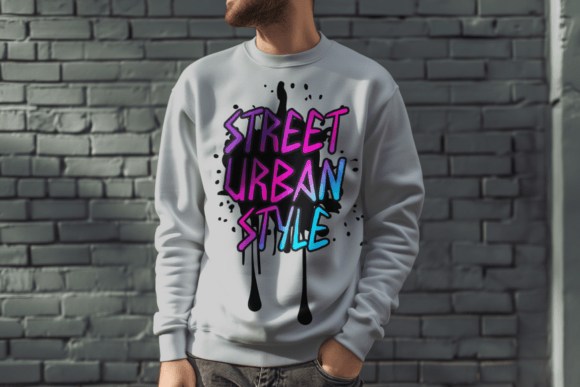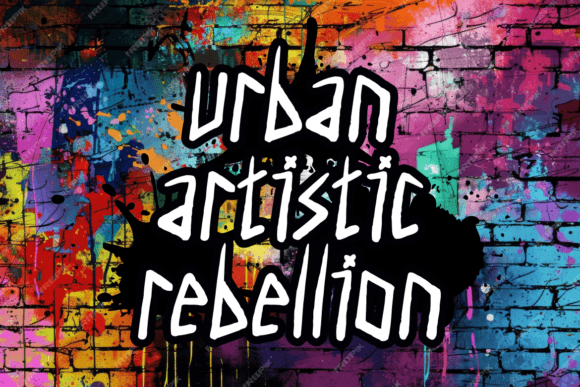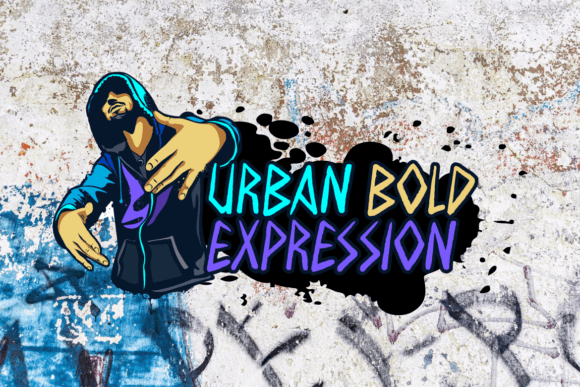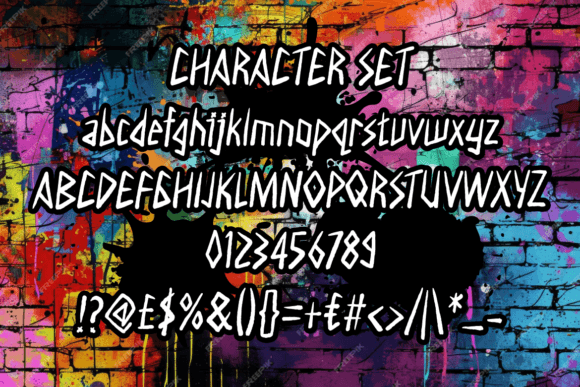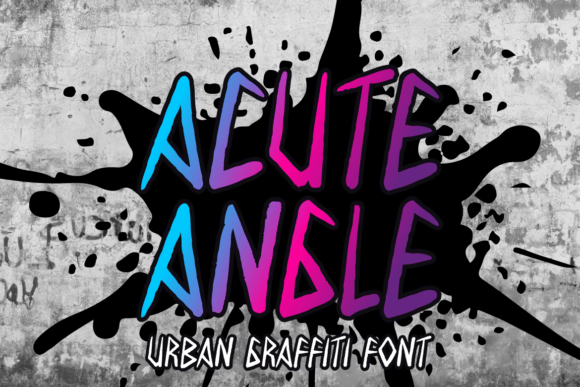
Introducing AcuteAngle: The Ultimate Urban Graffiti Font
Are you tired of using the same old fonts in your digital designs? Do you want to add a touch of rebellious flair to your projects? Look no further than AcuteAngle, the ultimate urban graffiti font. This bold typeface is perfect for designers and crafters who want to bring the raw energy of street art to their work.
The Inspiration Behind AcuteAngle
AcuteAngle is inspired by the vibrant and dynamic world of urban graffiti. The font features dynamic, hand-drawn letters with irregular edges and varying thicknesses, mimicking the spontaneous strokes of a spray can or brush on a gritty urban canvas. The result is a font that captures the essence of graffiti culture, with all its energy and attitude.
Key Features of AcuteAngle
- Dynamic, hand-drawn letters: Each letter in AcuteAngle has been carefully crafted to capture the unique, irregular shapes and lines of graffiti art.
- Irregular edges and varying thicknesses: The font’s irregular edges and varying thicknesses give it a rough, textured look that’s reminiscent of street art.
- Vibrant colors and rough textures: AcuteAngle comes with a range of vibrant colors and rough textures that evoke the raw energy of graffiti culture.
- Versatile and adaptable: Whether you’re designing logos, crafting invitation cards, or creating eye-catching posters, AcuteAngle is the perfect font for a wide range of applications.
AcuteAngle is a versatile font that’s perfect for a wide range of applications, including:
- Branding and packaging: Use AcuteAngle to create bold, eye-catching logos and packaging that stands out on store shelves.
- Book covers and greeting cards: Add a touch of urban flair to your book covers and greeting cards with AcuteAngle’s dynamic, hand-drawn letters.
- Posters and flyers: Create eye-catching posters and flyers that grab attention with AcuteAngle’s vibrant colors and rough textures.
Why Choose AcuteAngle?
So why choose AcuteAngle over other fonts? Here are just a few reasons:
- Unique, edgy charm: AcuteAngle adds a unique, edgy charm to your designs that’s sure to stand out.
- Authentic, personal touch: The font’s hand-drawn quality ensures that your designs will have an authentic, personal touch that’s reminiscent of street art.
- Ideal for younger audiences: AcuteAngle’s urban style is perfect for projects targeting younger audiences or brands that want to embrace a streetwise aesthetic.
Tips for Using AcuteAngle
Here are a few tips for using AcuteAngle in your designs:
- Experiment with different colors: AcuteAngle comes with a range of vibrant colors, so don’t be afraid to experiment and find the perfect color for your design.
- Mix and match with other fonts: AcuteAngle pairs well with other fonts, so try mixing and matching it with different typefaces to create a unique look.
- Use it sparingly: Because AcuteAngle is a bold font, it’s best to use it sparingly to avoid overwhelming your design.
In conclusion, AcuteAngle is the ultimate urban graffiti font that’s perfect for designers and crafters who want to add a touch of rebellious flair to their digital designs. With its dynamic, hand-drawn letters, irregular edges, and vibrant colors, AcuteAngle captures the essence of graffiti culture and brings it to your designs. Whether you’re designing logos, crafting invitation cards, or creating eye-catching posters, AcuteAngle is the perfect font for a wide range of applications.